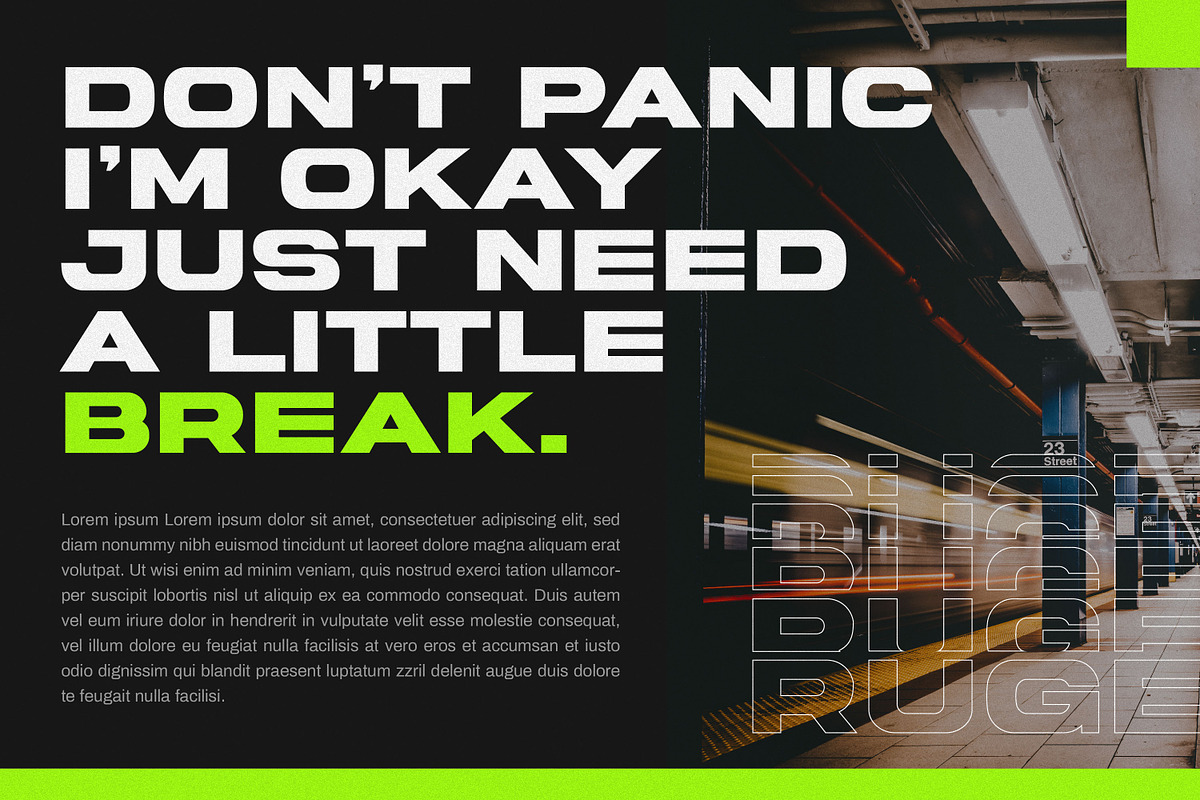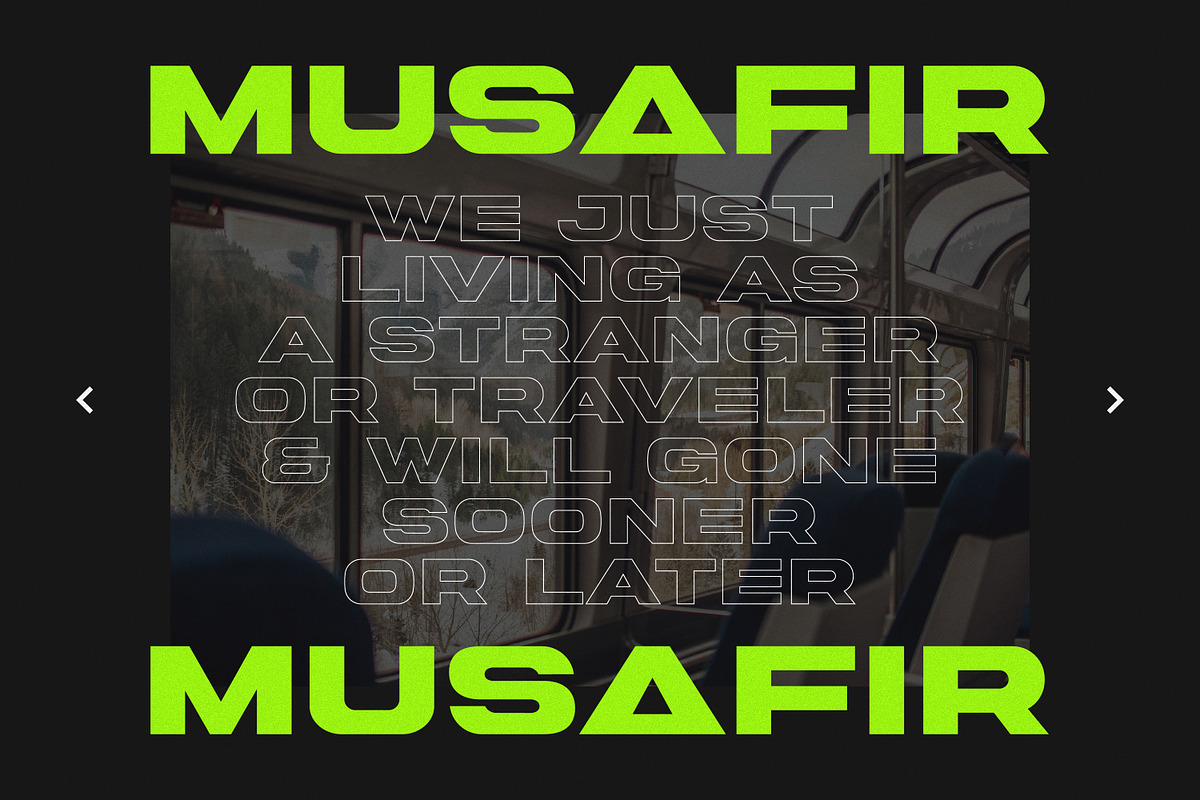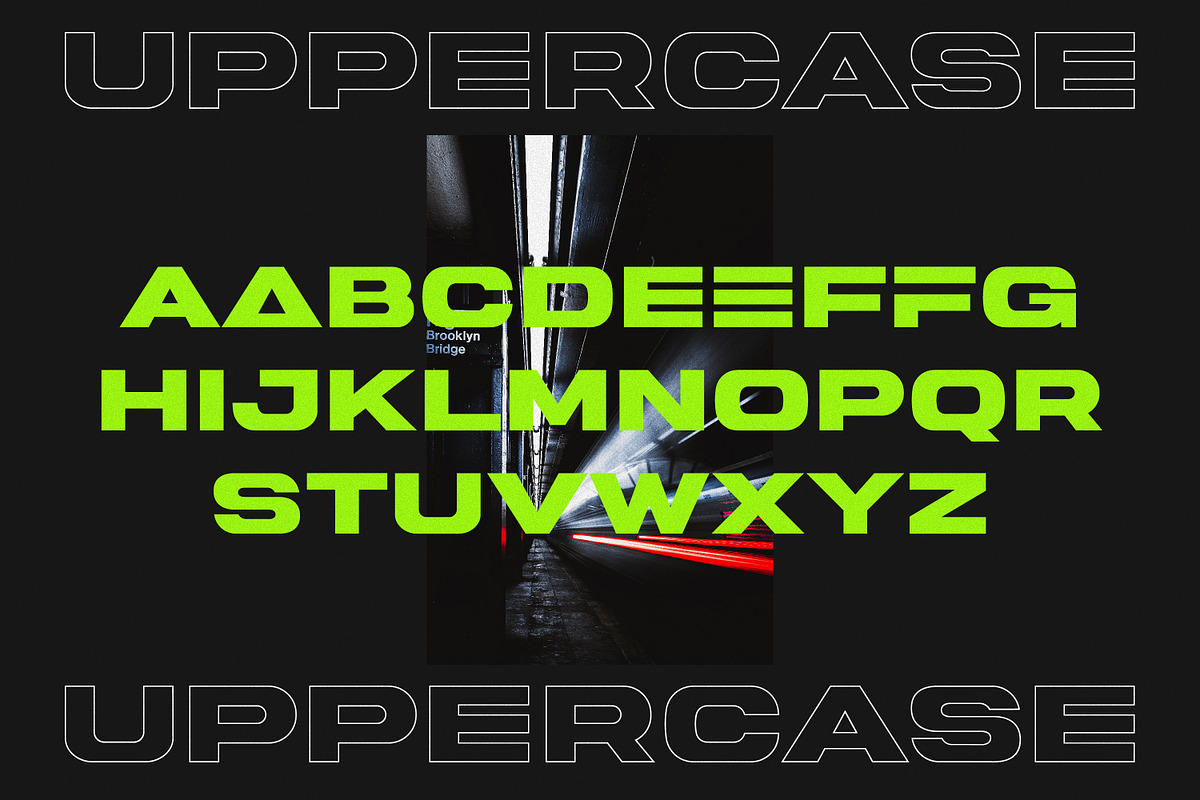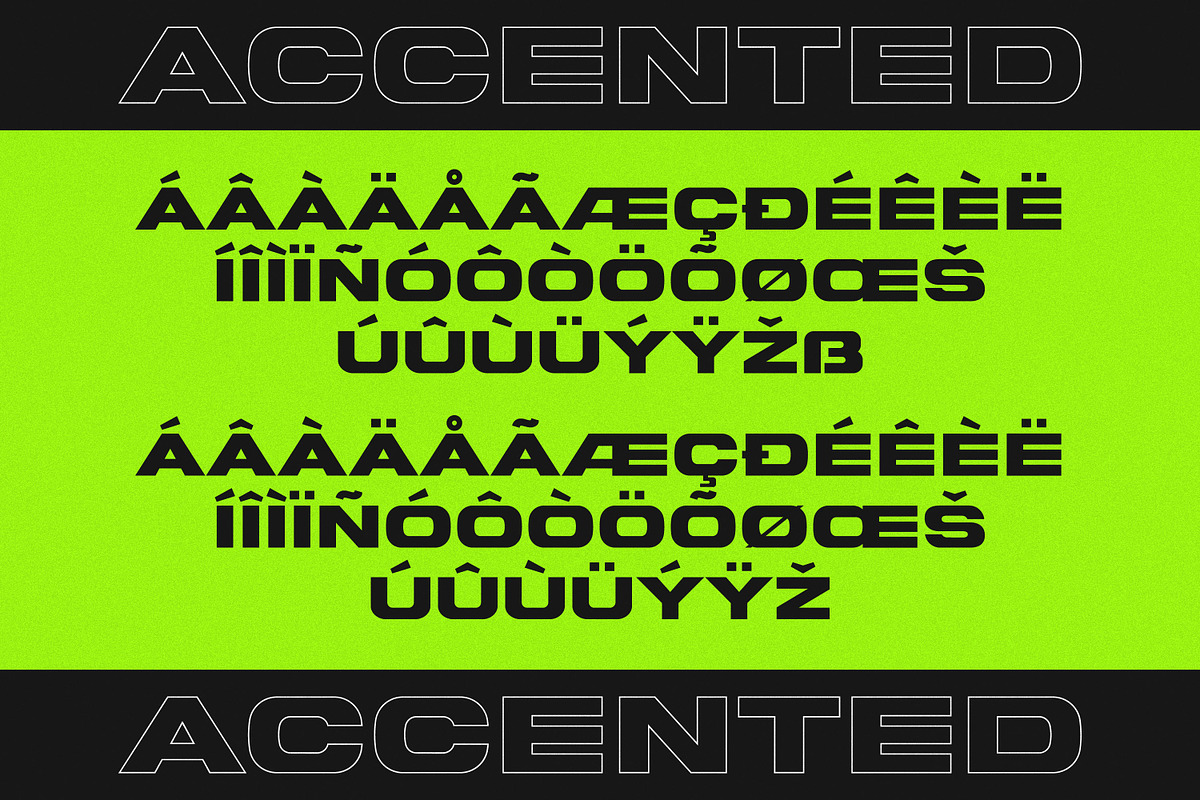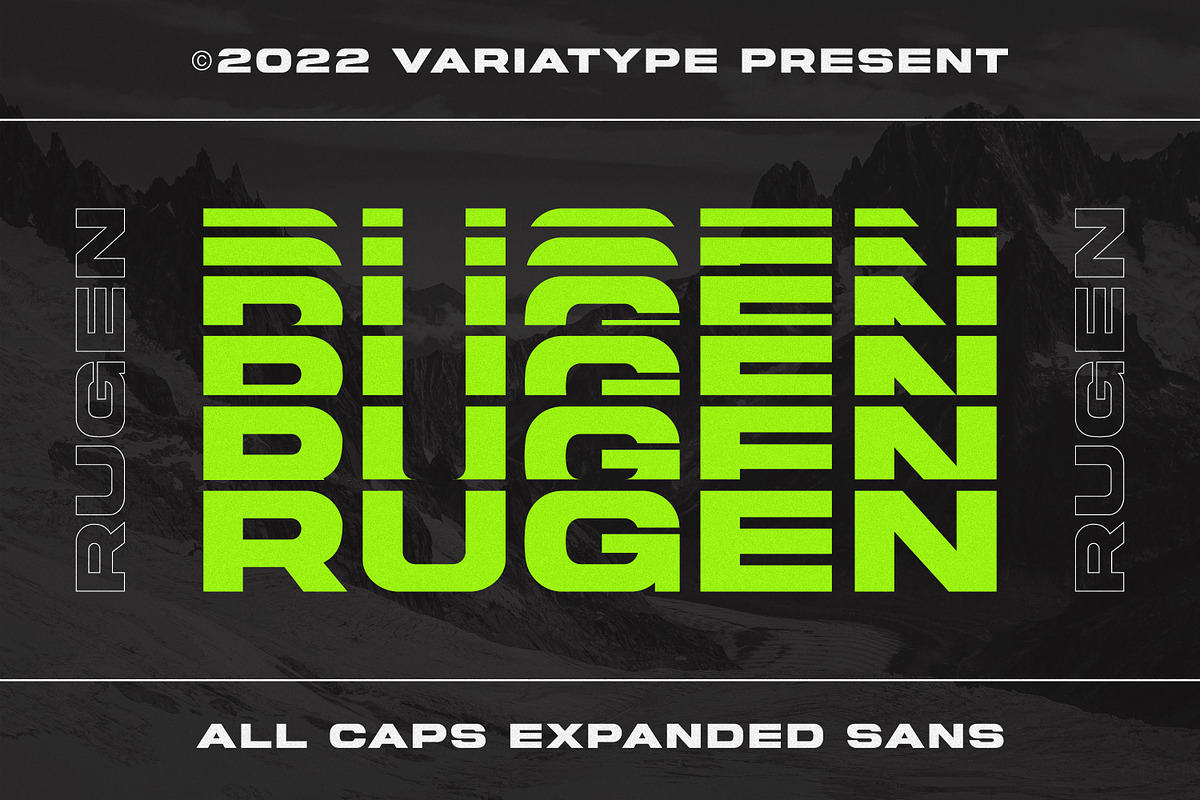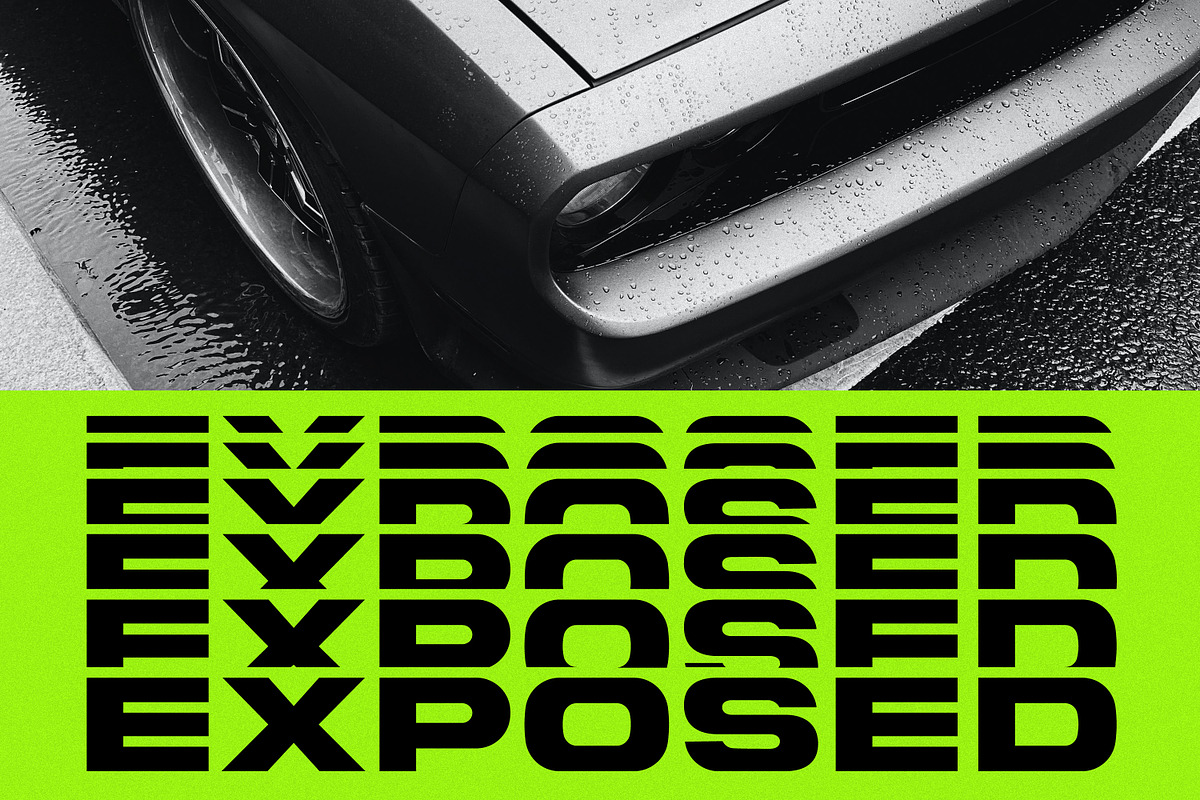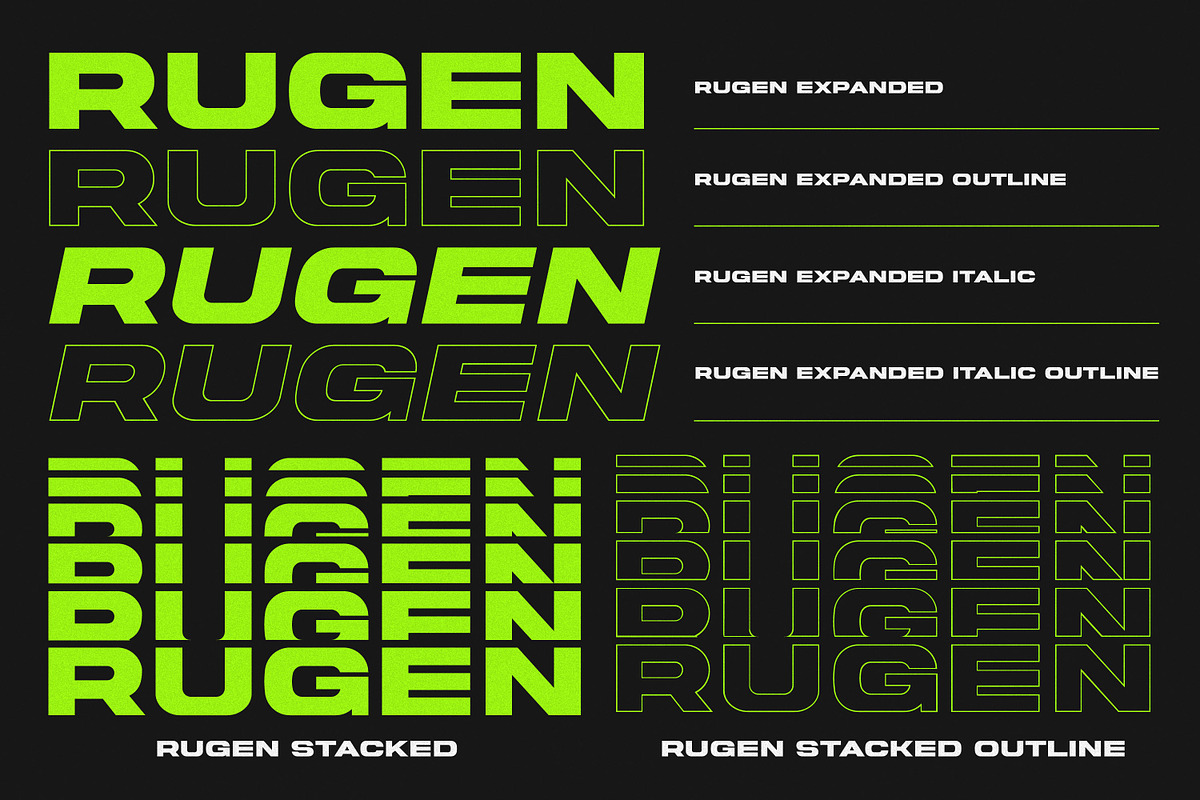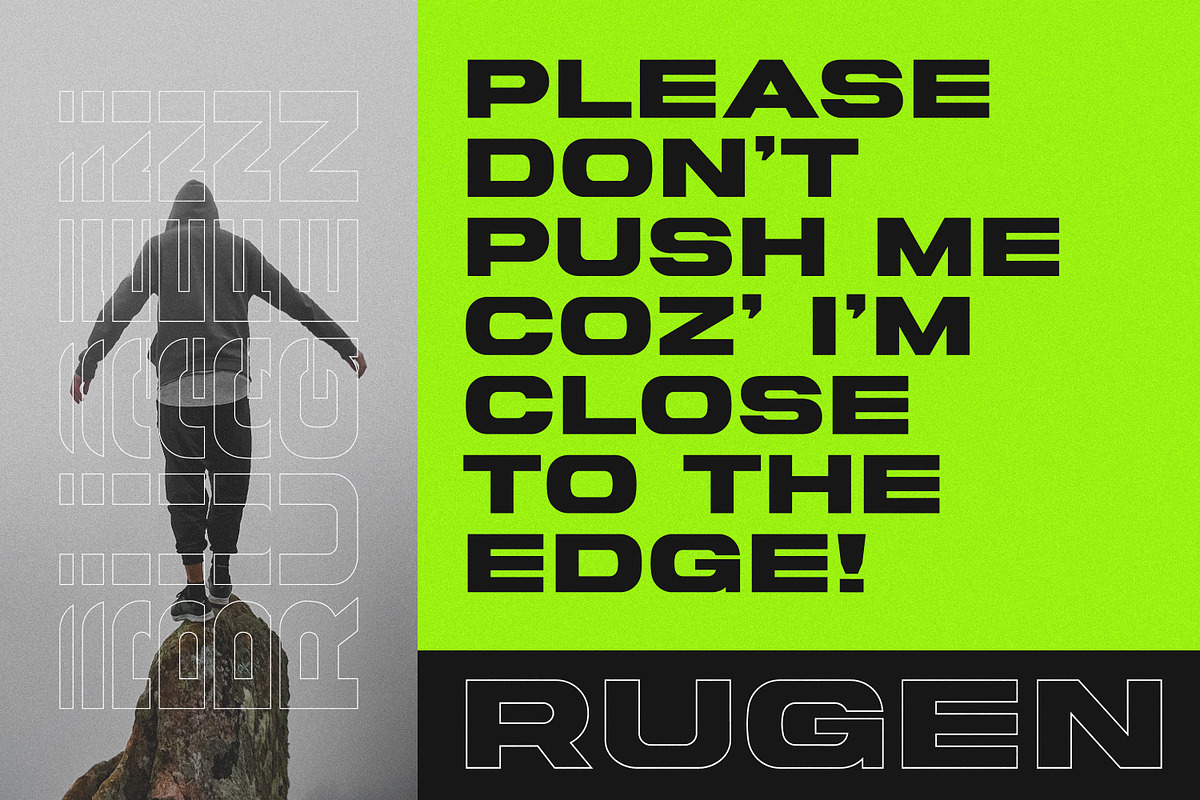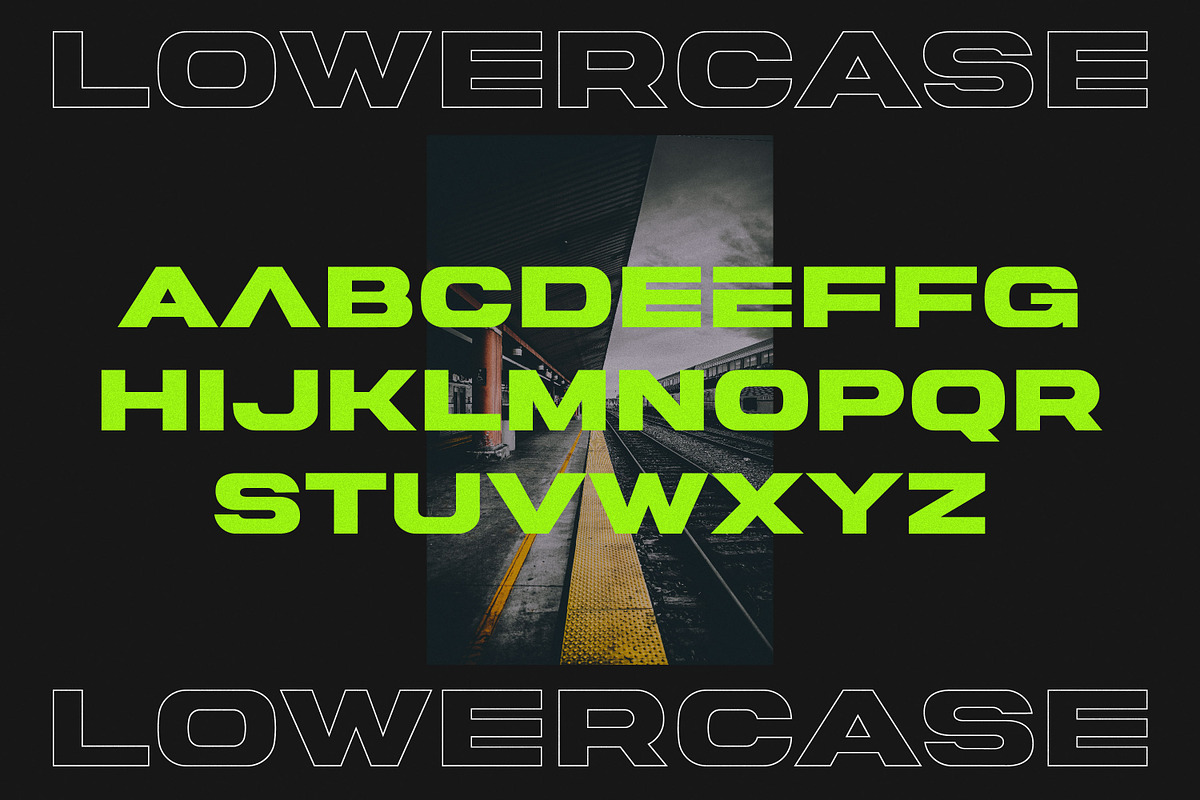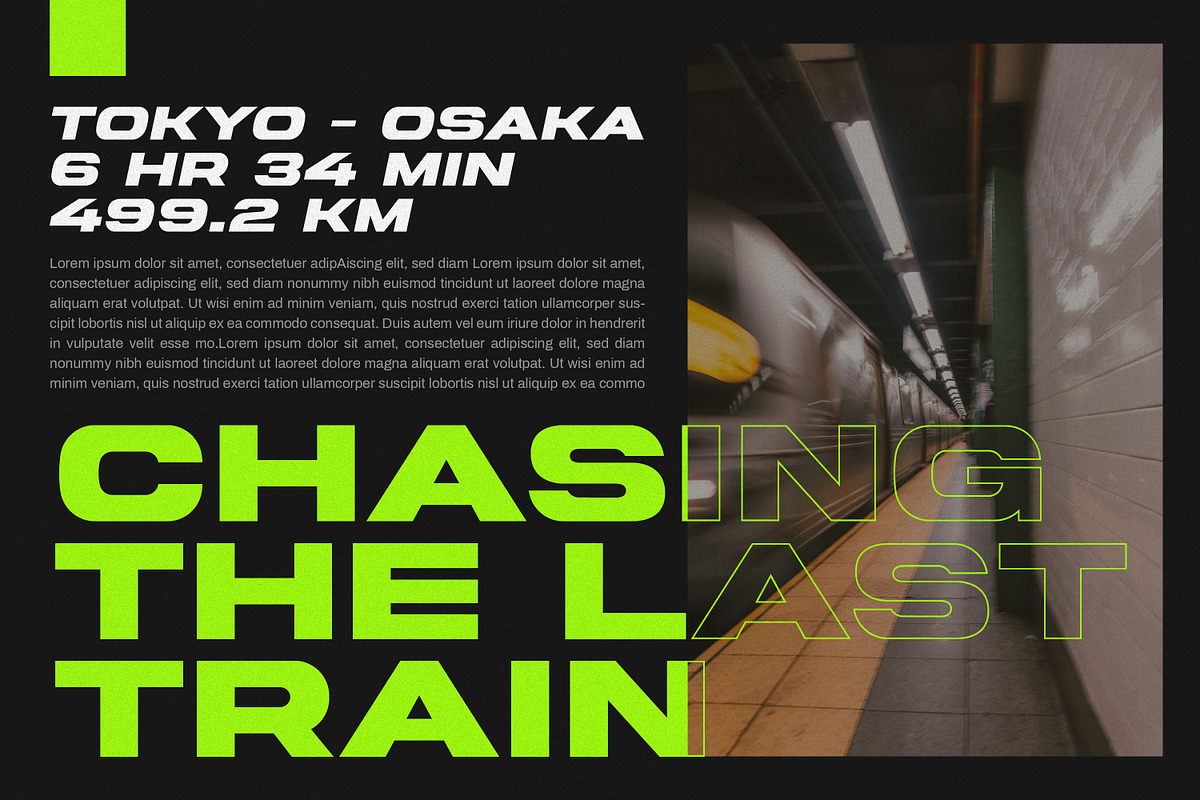
Rugen – All Caps Expanded
Rugen is an urban all-caps sans serif that perfectly matches your branding project and more.
FONT FEATURES
Additional Accents
66 Languages
Kerning